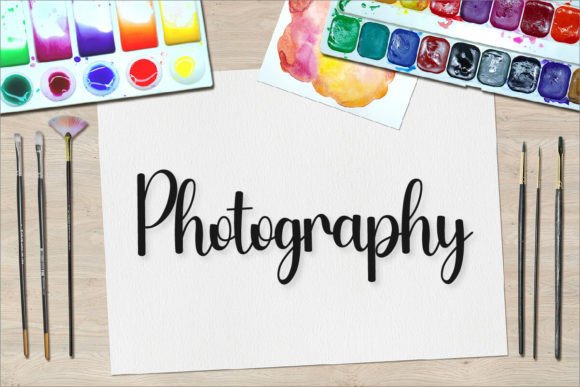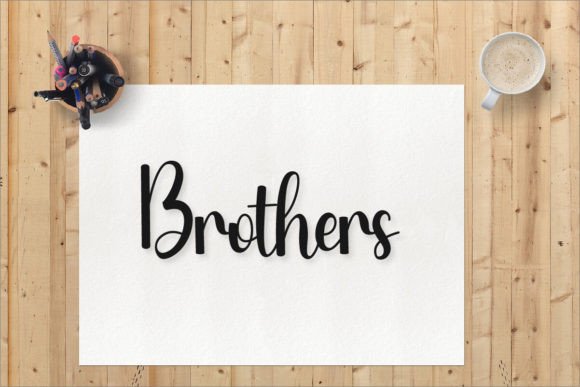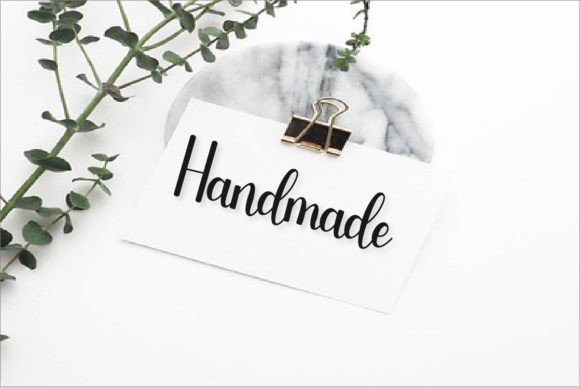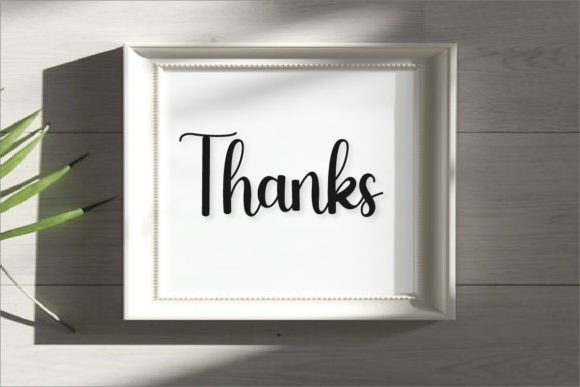
The Magic of Background Font: Elevate Your Designs with Elegance
I’ll never forget the moment I stumbled upon the perfect font for a client’s wedding invitation project. I had been searching for what felt like an eternity, trying out font after font, but nothing seemed quite right. That was until I discovered Background Font – an elegant and flowing handwritten font that instantly captured the essence of the occasion. In this article, I’ll share my love for Background Font, its features, and how to make the most of it in your designs.
A Personal Review: What I Love About Background Font
Background Font has quickly become a staple in my design toolkit, and for good reason. Here are some of the things that make it stand out:
- ✨ Elegant and flowing handwritten script with varied baselines, giving it a natural, organic feel
- ✅ Smooth lines and beautiful glyphs that make it a joy to work with
- ✨ Stunning alternates that allow for endless creativity and customization
- ✅ A classy calligraphic influence that feels both contemporary and fresh
While Background Font is an exceptional font, there are a few minor quirks to be aware of:
- ⚠️ Some of the more intricate glyphs and alternates may require a bit of experimentation to get just right
- 🤔 The font’s elegant nature means it may not be the best fit for very bold or attention-grabbing designs
The Story Behind Background Font
Background Font was designed with the intention of creating a elegant and refined handwritten script that would evoke the feeling of luxury and sophistication. The designer, inspired by the art of calligraphy, aimed to create a font that would be both classic and contemporary. Through careful attention to detail and a passion for typography, Background Font was born.
| Font Name | Background Font |
| Author | AA studio |
| What makes Background Font unique? | Background Font’s unique blend of elegant lines, beautiful glyphs, and stunning alternates make it stand out from other fonts. |
| Is Background Font suitable for body text? | While Background Font is beautiful, it’s best suited for headlines and titles. For body text, a clearer font may be more suitable. |